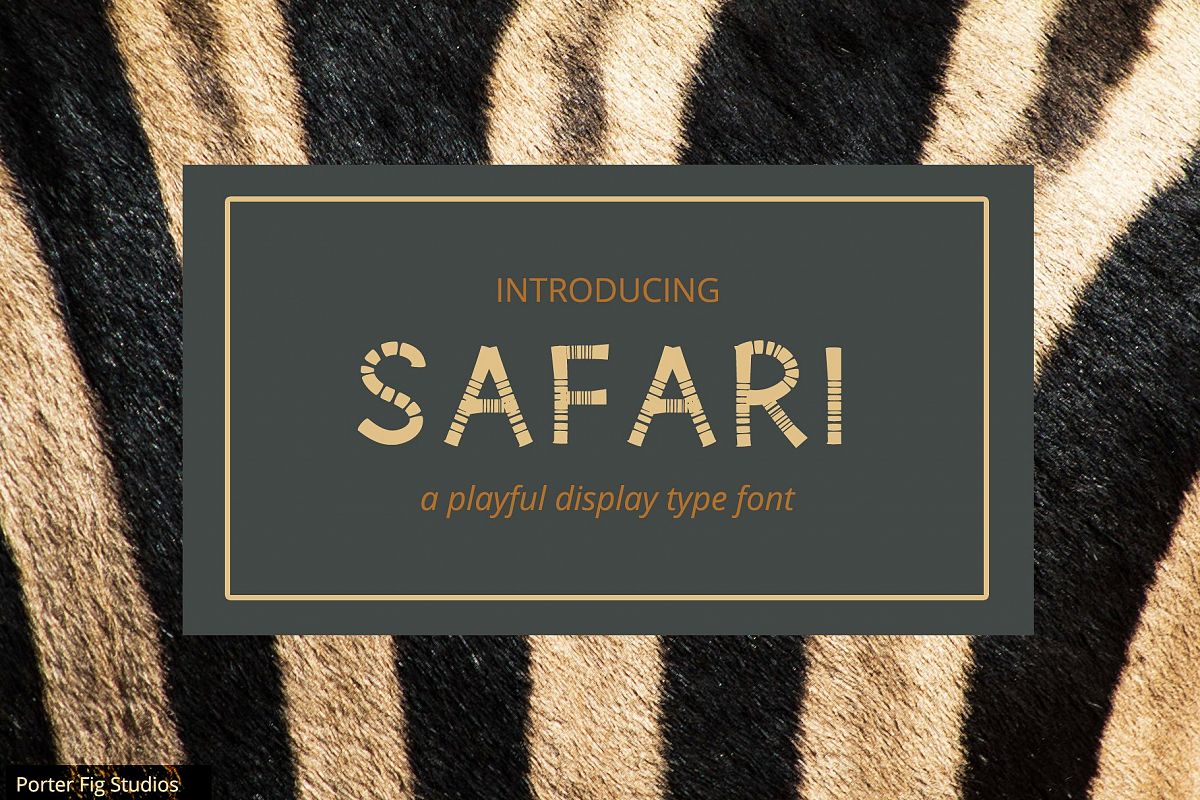
Safari Playful Display Font Typeface
Introducing our new handmade font ~ Safari. Reminiscent of a retro font, yet with
the playful freedom of a modern hand drawn font. Great for flyers,
advertisements, books, comics, storybooks, and more.